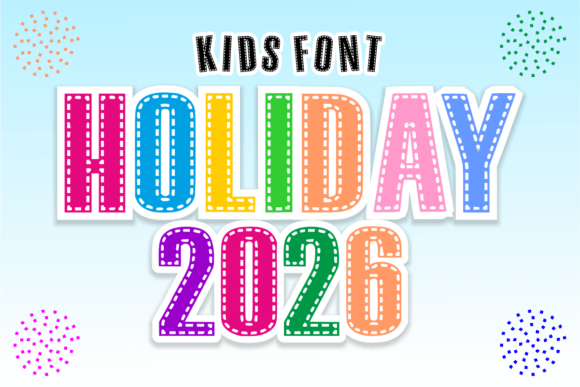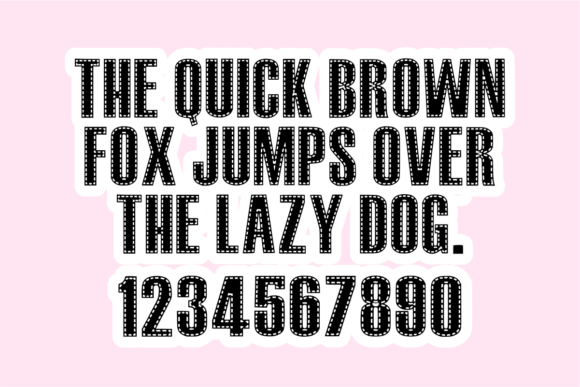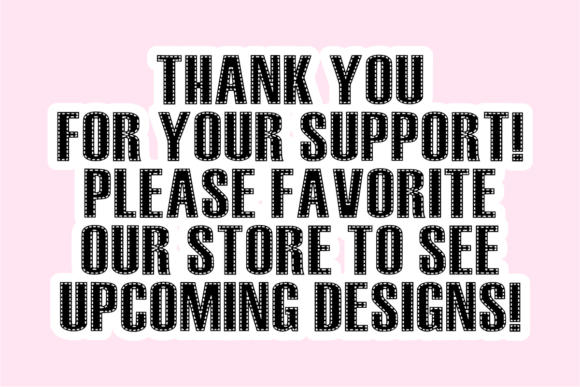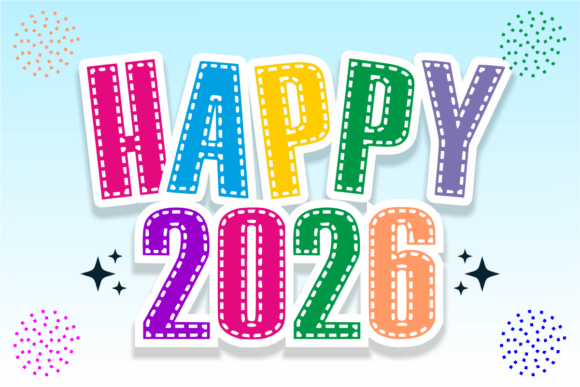
Happy 2026 Font: The Perfect Addition to Your Font Library
As the clock strikes midnight on December 31st, we bid adieu to the old year and welcome the new one with open arms. The excitement and joy of a fresh start are palpable, and what better way to express it than with a font that’s as cheerful as the occasion? Introducing the Happy 2026 Font, a display font designed to bring a smile to your face and a touch of festivity to your creations.
A Font for Every Occasion
Happy 2026 is more than just a font; it’s a versatile tool that can elevate any project. Whether you’re a designer, crafter, or DIY enthusiast, this font is sure to become a favorite in your library. Its versatility knows no bounds, making it perfect for a wide range of applications, including:
- Logos and branding materials: Add a playful touch to your business’s identity with a font that’s both fun and professional.
- Greeting cards and invitations: Create stunning cards and invites that set the tone for any celebration.
- Mugs and t-shirts: Give your merchandise a personalized touch with a font that’s sure to put a smile on anyone’s face.
- Comics and illustrations: Add a pop of personality to your artwork with a font that’s as playful as it is legible.
- Crafts and DIY projects: Bring a touch of whimsy to your handmade creations, from scrapbooking to woodworking.
What Makes Happy 2026 Font So Special?
So, what sets Happy 2026 apart from other fonts on the market? Here are just a few reasons why this font is sure to become a staple in your collection:
- Unique Character: Happy 2026 has a distinct personality that’s both modern and playful, making it perfect for projects that require a touch of whimsy.
- High Legibility: Despite its decorative nature, this font remains highly legible, even at smaller sizes.
- Flexibility: Use Happy 2026 for both digital and print projects, from social media graphics to business cards and brochures.
Tips for Using Happy 2026 Font
- Experiment with Colors: Happy 2026 looks great in a variety of colors, from bright and bold to pastel and subtle.
- Play with Pairings: Combine Happy 2026 with other fonts to create stunning contrast and visual interest.
- Don’t Be Afraid to Get Creative: Use Happy 2026 in unexpected ways, such as in illustrations, patterns, or textures.